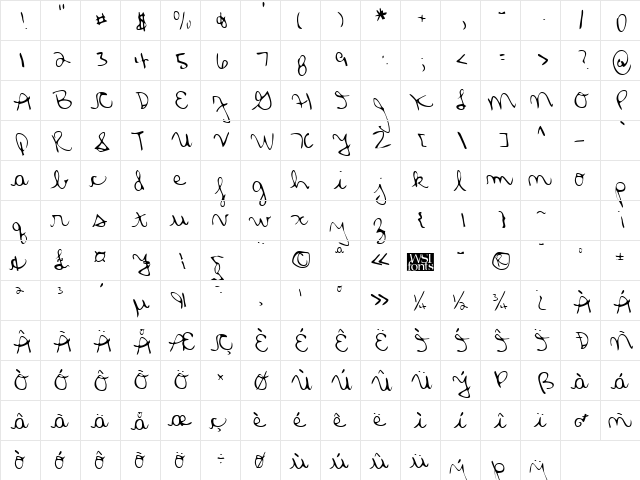
FlorasHand Regular
Design Context for FlorasHand Typeface
FlorasHand brings a calligraphic fluidity to the page — its connecting strokes and expressive curves give it an unmistakably human quality.
Font Pairing: Combine FlorasHand with a simple geometric sans for maximum contrast — the tension between flowing curves and clean structure is a classic typographic pairing.
Pro Tip: Use FlorasHand for short runs of text — names, titles, or taglines. Extended body copy in script faces tires the eye quickly.